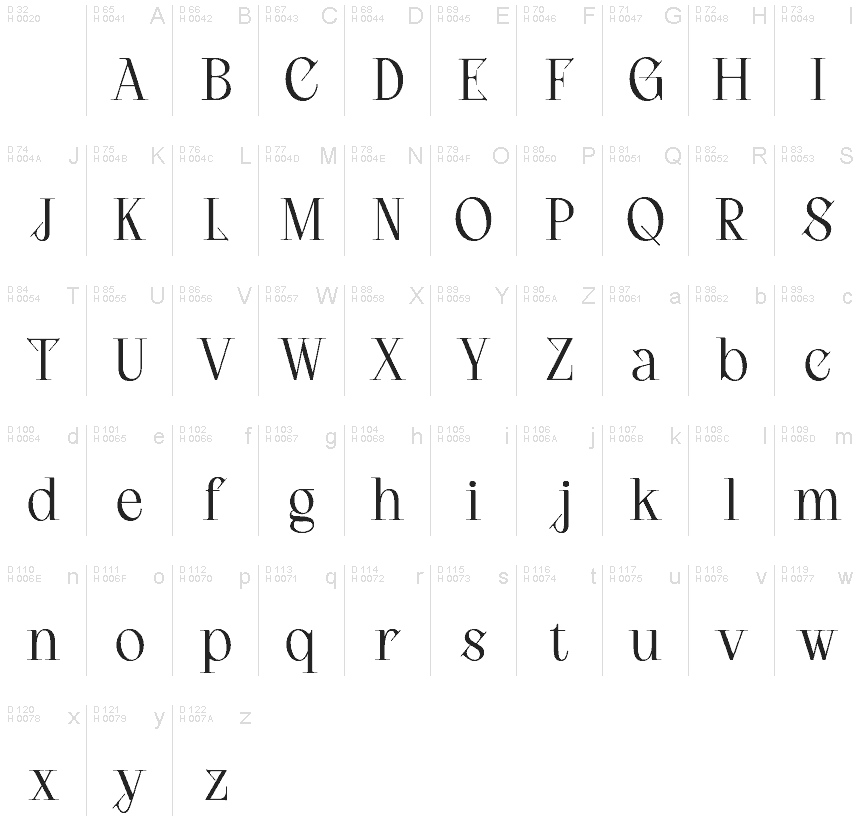
Chiston Demo Regular
Chiston font by Craft Supply Co is an elegant serif masterpiece that skillfully combines classical influences with contemporary aesthetics. Its sophisticated appearance and refined detailing make it a go-to choice for designers seeking a touch of elegance and professionalism in their projects. This free serif font brings together harmonious proportions and exquisite craftsmanship for more visual impact.
Ideal for branding, editorial design, headlines, invitations, books covers, websites, product packaging, logos, quotes, banners and any other project that requires a graceful touch. Use Chiston to transform ordinary presentations into memorable ones with long-lasting emphasis.